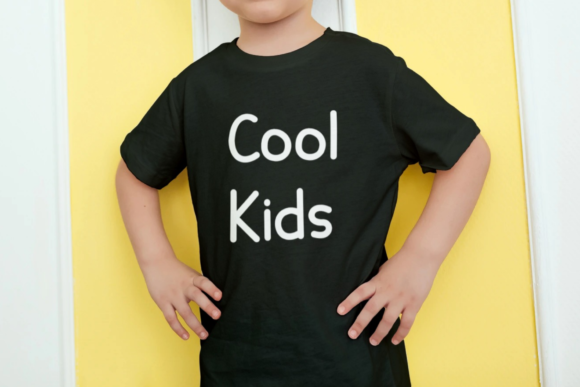
Children Sans Font
Children Sans is a fantastic handwritten font that is best suited for headlines of all sizes, as well as for blocks of text that have both maximum and minimum variations. Whether it’s for web, print, moving images or anything else – Children Sans will look spectacular.